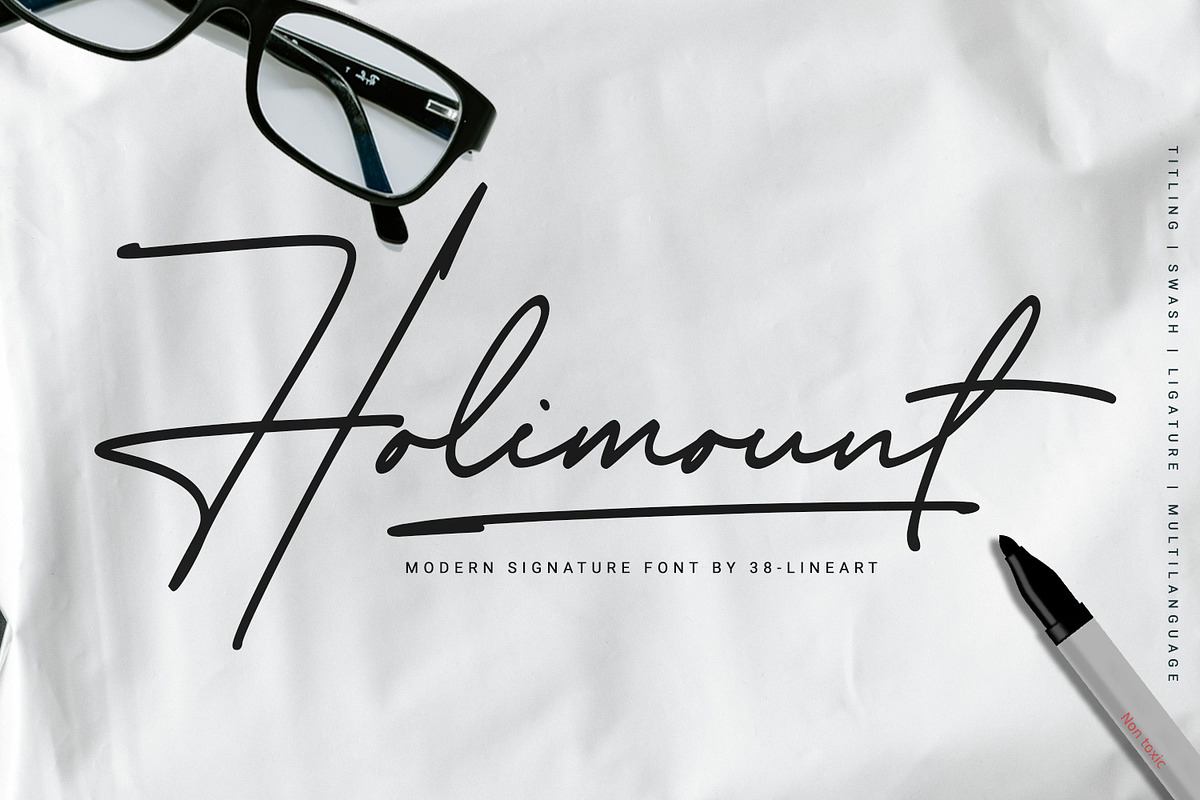
Holimount - Modern Signature Font Free Download is an elegant and stylish handwritten script typeface designed to capture the essence of modern calligraphy. Featuring flowing letterforms and delicate strokes, this font is perfect for creating sophisticated branding, personal signatures, wedding invitations, logos, and more. Its unique, artistic flair adds a personalized and luxurious touch to any design project.
Using the Holimount - Modern Signature Font Free Download adds an air of elegance and refinement to your typography. Whether you’re working on a custom logo, crafting a wedding invite, or designing high-end marketing materials, this font enhances your designs with its timeless, handwritten style.